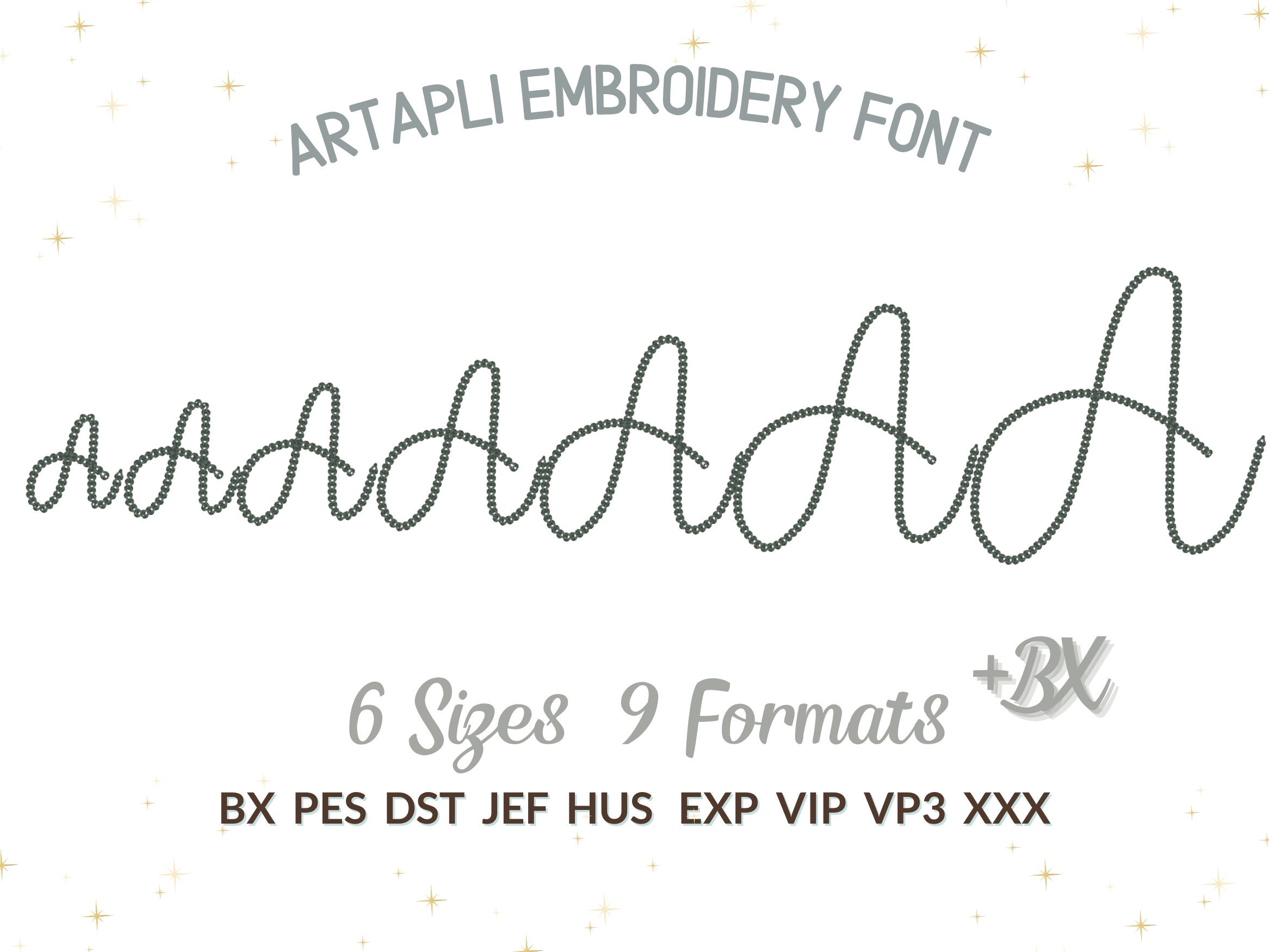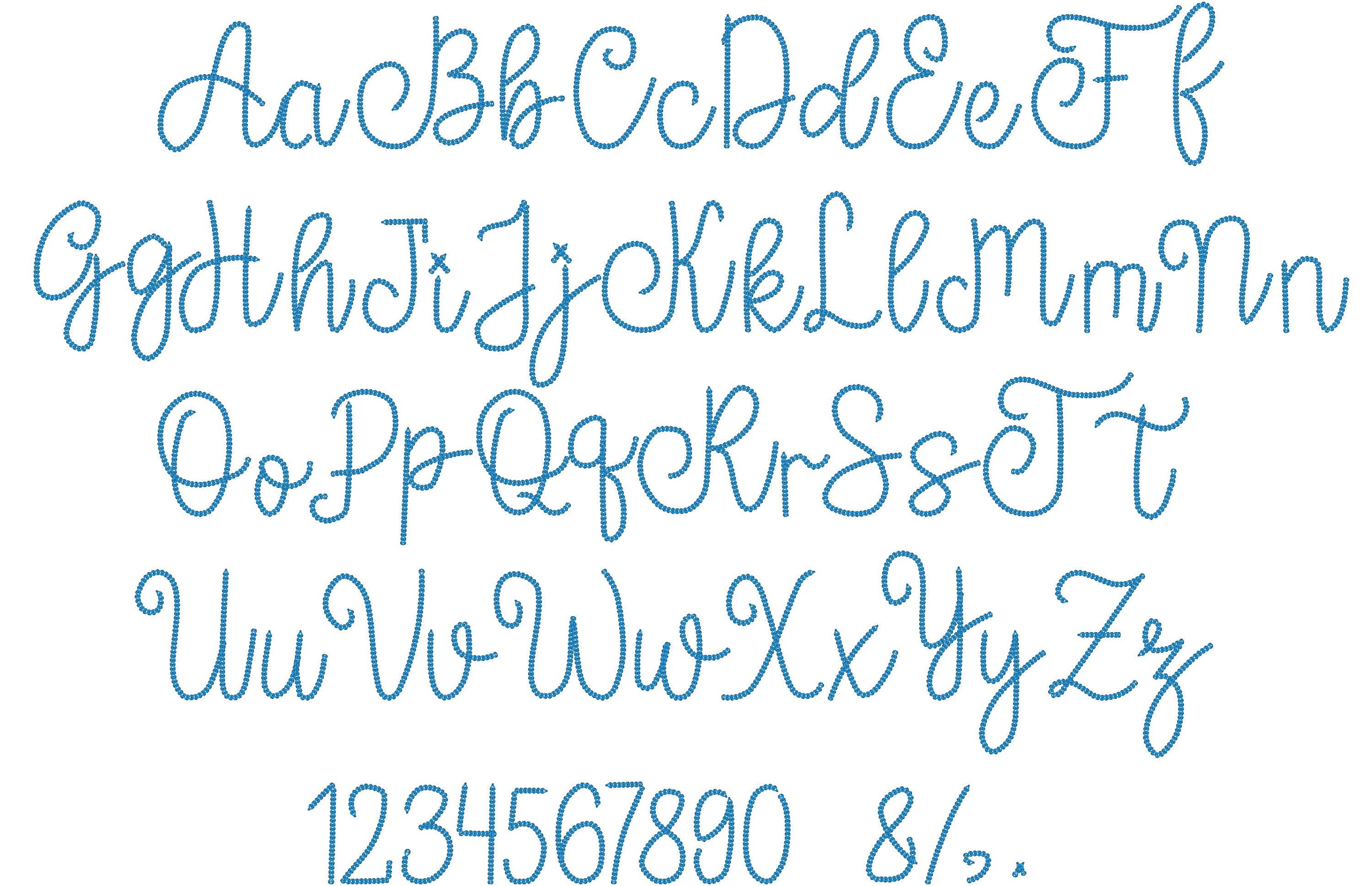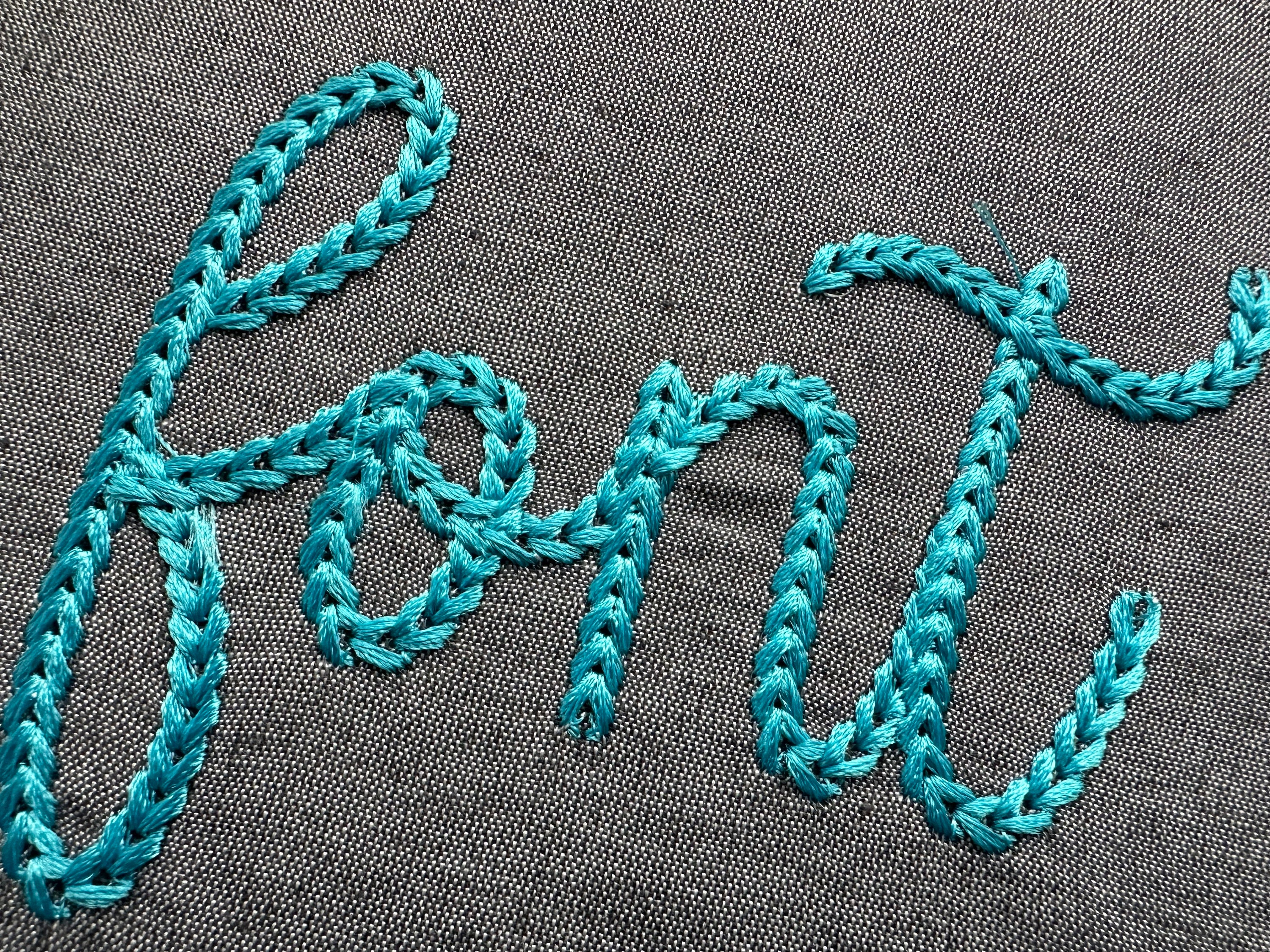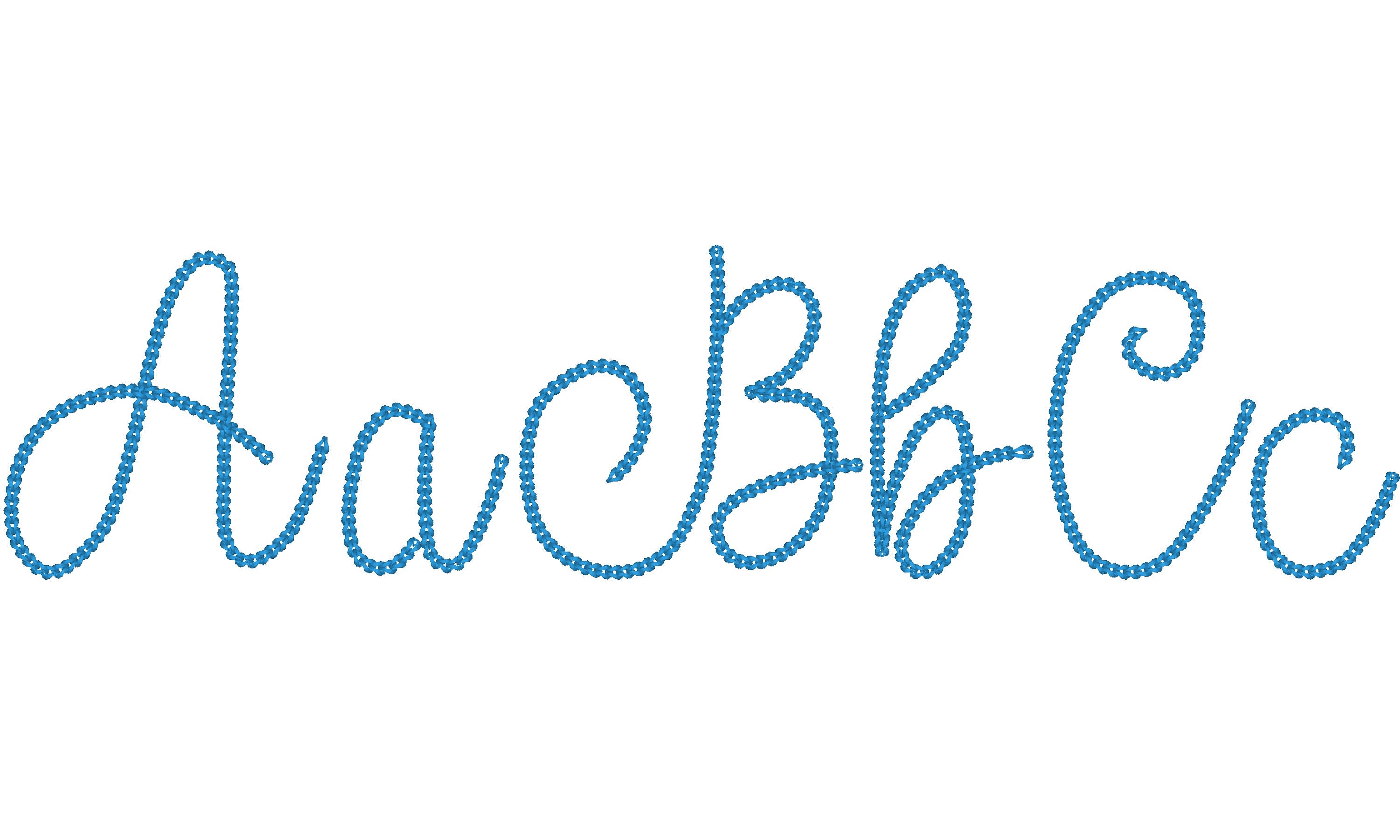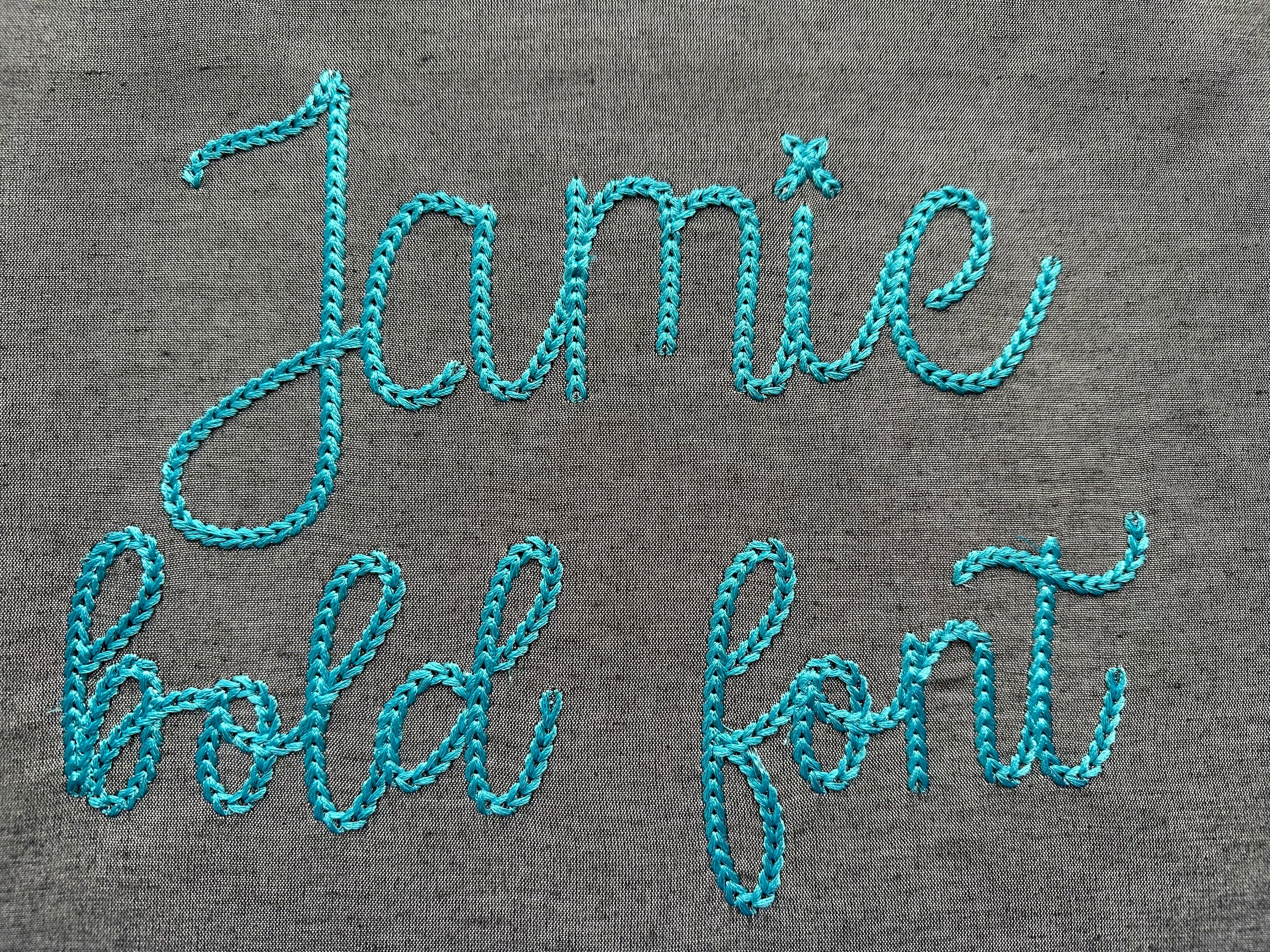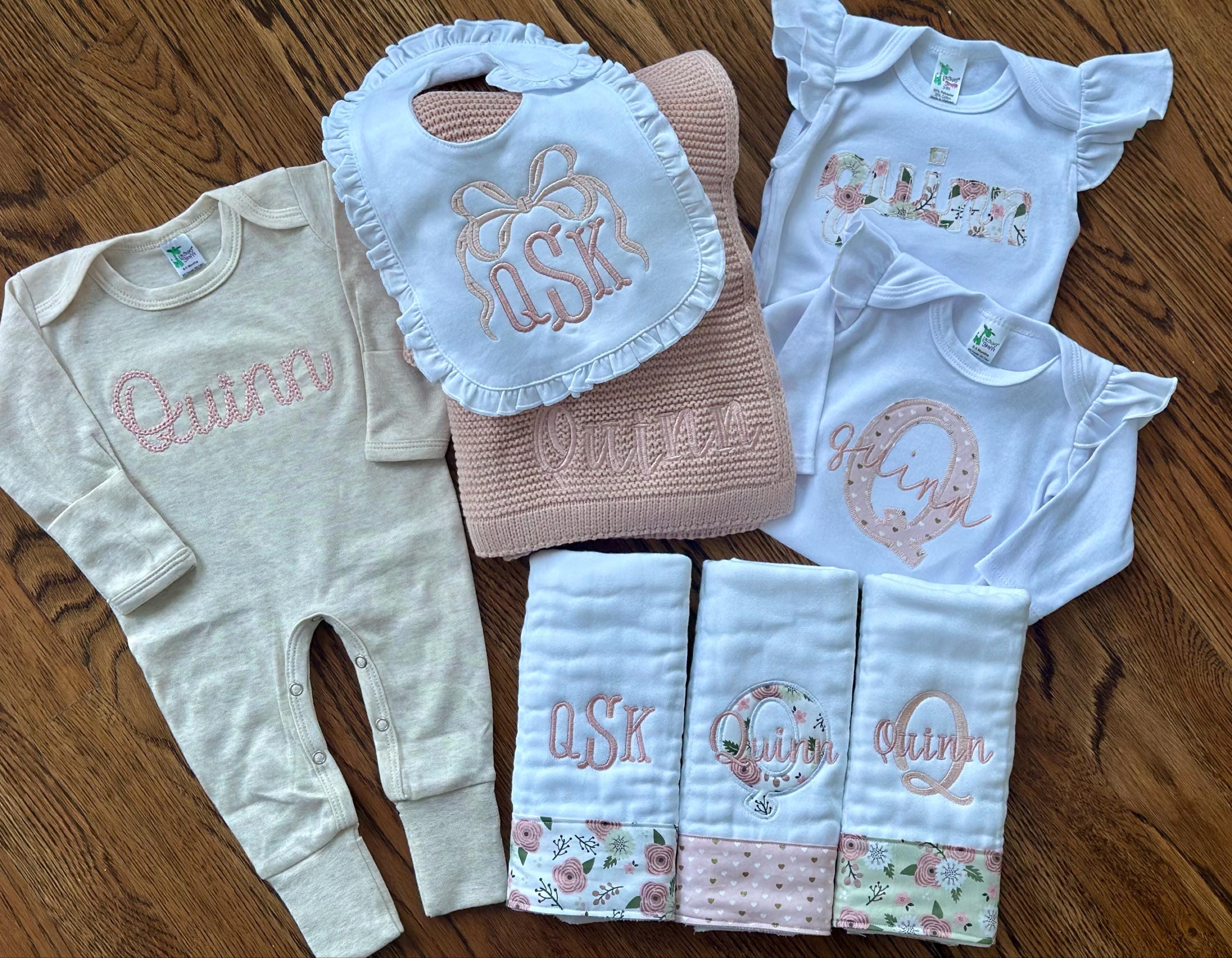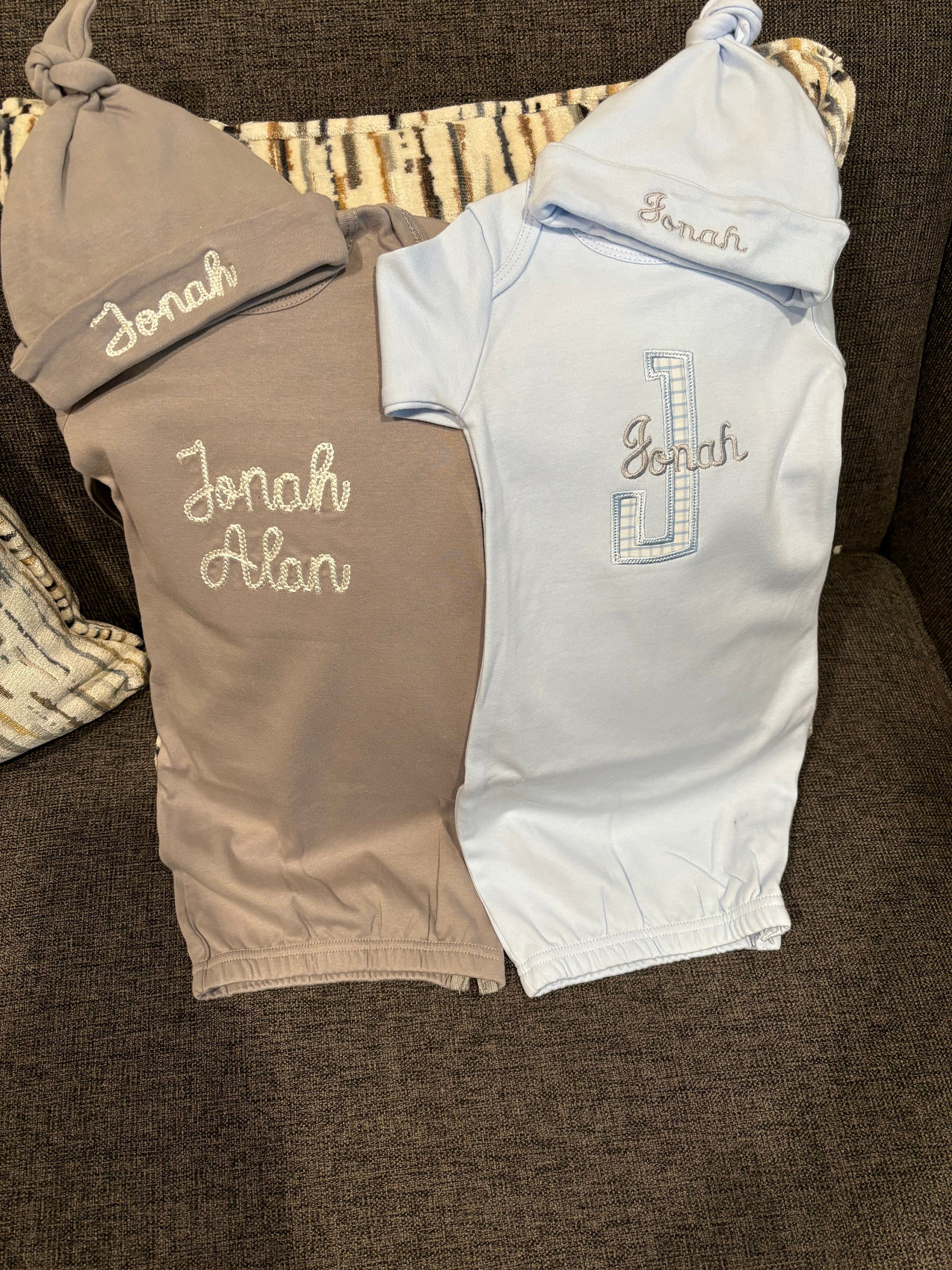
Bold Chain stitch FONT Dense chain machine embroidery designs in alphabet letters knit sweater handmade effect chain name, BX included
Entire alphabet uppercase and lowercase letters, numbers, and punctuation.